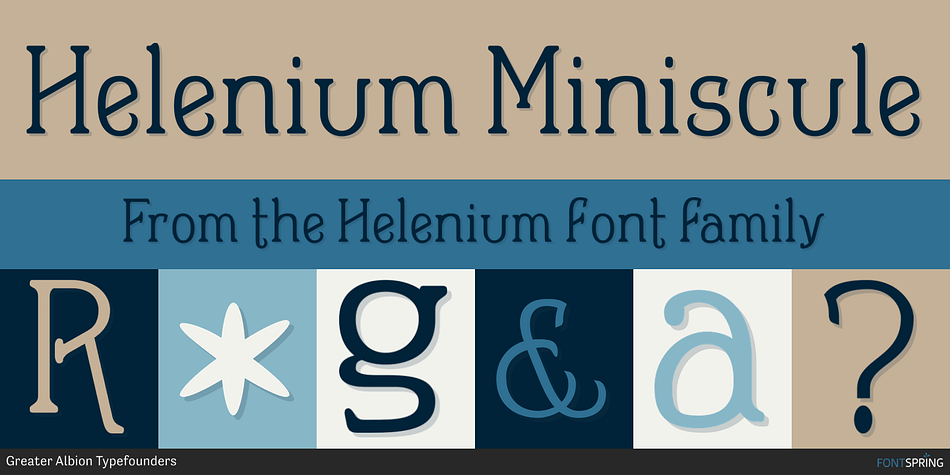
HELENIUM MINISCULE
Helenium is a historical font family. This typeface has ten styles and was published by Greater Albion Typefounders.
Informal does not have to mean aggressively modern or casual.
Informal does not have to mean aggressively modern or casual. Helenium is inspired by some hand drawn capitals that I found added to a 19th century map. It’s a great font for informal titles and headings that still keep an air or regularity and ever so slightly period elegance. It manages to be formal and casual all at once, as well as classical and modern. Helenium’s range of different weights and drop shadow effects make it useful for hierarchical titles and headings while Helenium Miniscule adds greater flexibility by extending the family with a fun range of rounded lower case forms.